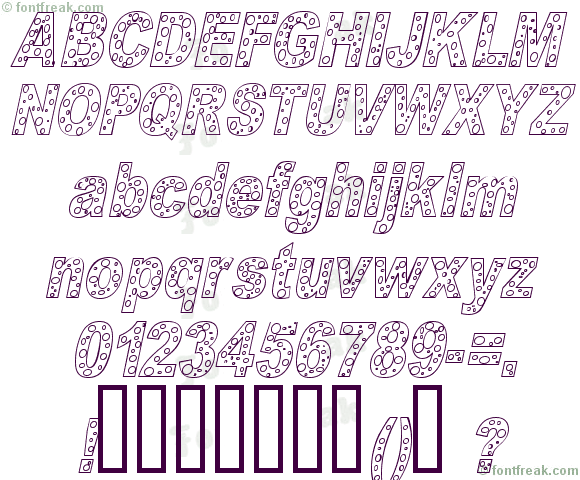
HOLE 3 cursive outline
HOLE
HOLE 2 cursive
About Hole
The Hole font, created by Fontmaker and designed by Dieter Schumacher in 1998, is a distinctive decorative typeface that falls under the category of cursive outline fonts. Its unique design features hollow letters that are punctuated with playful circular cutouts, giving it a light-hearted and whimsical aesthetic. The stroke weight is consistent, creating an engaging visual balance, while the spacing between letters is ample, ensuring clarity without compromising its artistic flair.
This font is particularly versatile and can be utilized in a variety of creative projects. It shines brightly in wedding invitations, where its charming design adds a personal touch to the celebration. Movie posters also benefit from the Hole font, as its eye-catching style draws attention and conveys an element of fun. Additionally, it can enhance restaurant menus, providing a welcoming and casual vibe that attracts diners. Graphic designers may find it ideal for branding projects, where a memorable font can help businesses stand out from the competition. Content creators looking to add a playful element to their visual materials will also appreciate its unique character.